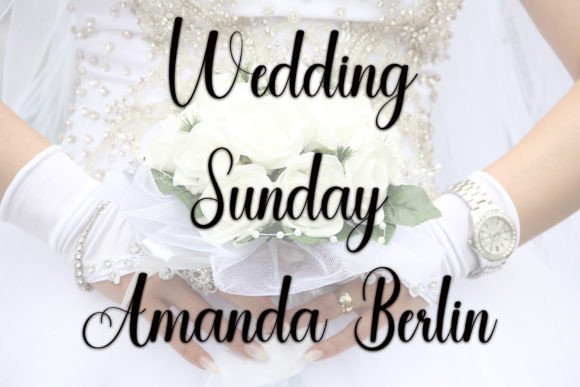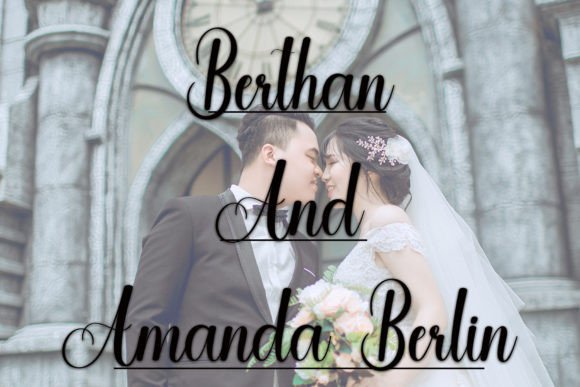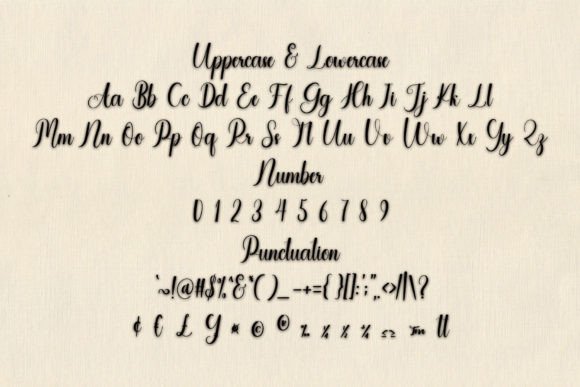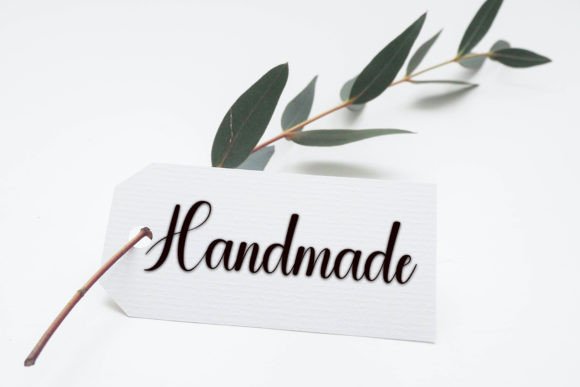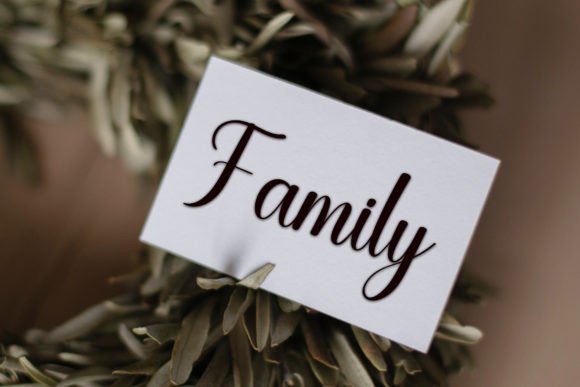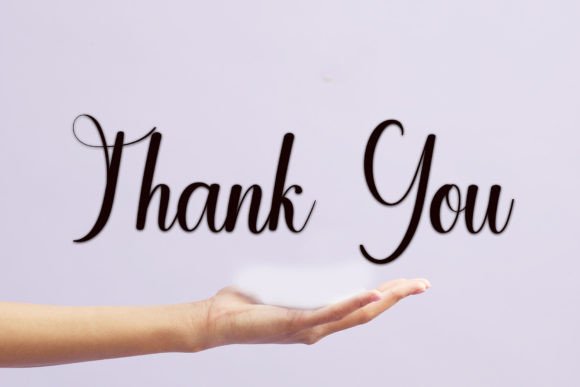
Introducing Anything Font: Elevate Your Designs with Elegance
Are you on the hunt for a font that adds a touch of sophistication and charm to your projects? Look no further than Anything Font, a stunning handwritten typeface that is sure to capture your heart. With its elegant touch and timeless style, Anything Font is the perfect choice for designers and crafters seeking to create spectacular designs that stand out from the crowd.
The Beauty of Anything Font
Anything Font is a beautifully crafted handwritten font that exudes a sense of refinement and luxury. Its incredibly distinct style is characterized by flowing lines, subtle curves, and a delicate touch that gives it a unique and captivating charm. Whether you’re working on a branding project, a wedding invitation, or a social media graphic, Anything Font is sure to add a touch of elegance and sophistication to your design.
What Makes Anything Font So Special?
So, what sets Anything Font apart from other fonts on the market? Here are just a few features that make it a standout choice for designers and crafters:
• Unique and Timeless Style: Anything Font boasts a distinctive style that is both modern and timeless. Its elegant touch and flowing lines give it a classic look that will never go out of fashion.
• Highly Versatile: Whether you’re working on a digital project or a print design, Anything Font is highly versatile and can be used in a variety of contexts.
• Elegant and Refined: With its delicate curves and sophisticated lines, Anything Font adds a touch of elegance and refinement to any design.
• Easy to Read: Despite its elegant style, Anything Font is highly legible and easy to read, making it perfect for body text and headlines.
How to Use Anything Font in Your Designs
Using Anything Font in your designs is easy and straightforward. Here are a few tips to get you started:
• Pair it with Other Fonts: Anything Font pairs beautifully with other fonts, especially sans-serif and serif fonts. Experiment with different combinations to find the perfect look for your design.
• Use it for Headlines and Titles: Anything Font is perfect for headlines and titles, where its elegant style can really shine.
• Add a Personal Touch: Use Anything Font to add a personal touch to your designs, whether it’s a handwritten note or a custom illustration.
Why Designers and Crafters Love Anything Font
Anything Font has quickly become a favorite among designers and crafters, and for good reason. Here are just a few reasons why:
• Unique and Creative: Anything Font offers a unique and creative way to express yourself through your designs.
• Elegant and Sophisticated: With its elegant style and sophisticated lines, Anything Font adds a touch of luxury and refinement to any design.
• Highly Versatile: Whether you’re working on a digital project or a print design, Anything Font is highly versatile and can be used in a variety of contexts.
In conclusion, Anything Font is a beautiful and elegant handwritten font that is perfect for designers and crafters seeking to add a touch of sophistication and charm to their projects. With its unique and timeless style, highly versatile nature, and elegant touch, Anything Font is sure to become a favorite in your design arsenal. So why wait? Fall in love with Anything Font today and start creating spectacular designs that stand out from the crowd!